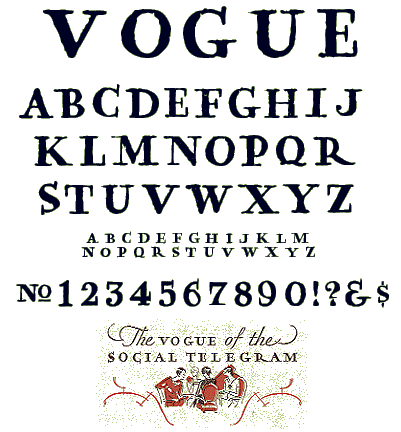
This rough-edged display font is inspired by section headings in another vintage booklet from Western Union that I collected somewhere along the way. It is an all-uppercase alphabet, but there are differences between the upper and lowercase letters.